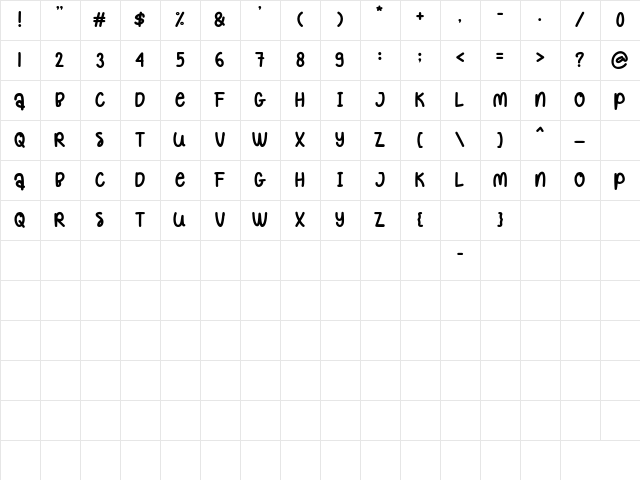
Fun Mountain Font has an approachable, lighthearted character - its loose, expressive forms are well-suited to children's content, casual branding, and fun-first design.
Font Pairing: Pairs well with a rounded or humanist sans for body copy, maintaining the friendly tone without relying on Fun Mountain Font to carry extended reading.
Pro Tip: Use Fun Mountain Font at larger display sizes where its expressive character can land. Pair with a clean, simple sans for body copy to maintain readability.